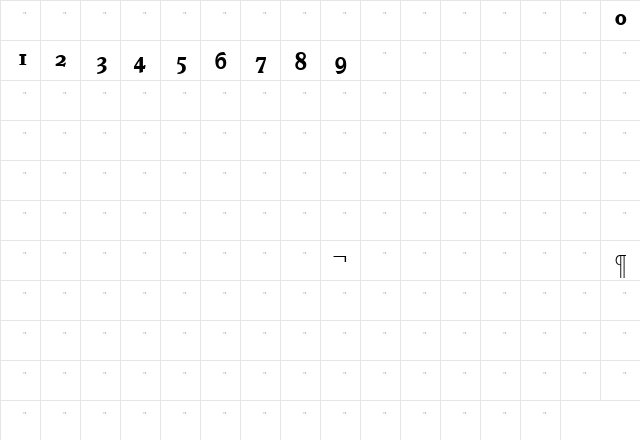
VeroneseBoldOldStyleFigures Medium
Design Context for VeroneseBoldOldStyleFigures Typeface
VeroneseBoldOldStyleFigures brings classic typographic sensibility to the table — its serifs and measured letterforms reflect centuries of print heritage. The heavy weight commands attention and anchors typographic hierarchies.